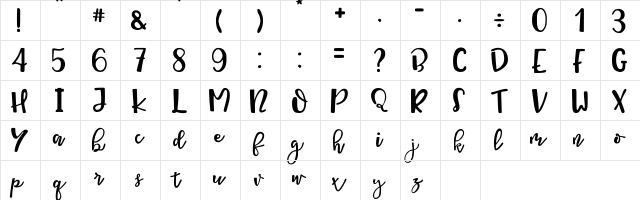
Queen Mataram Regular
Design Context for Queen Mataram Typeface
Queen Mataram is a composed and adaptable typeface that performs quietly and consistently across a wide range of design contexts.